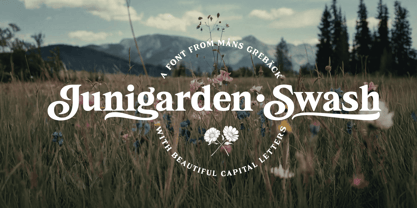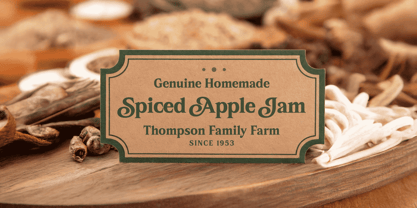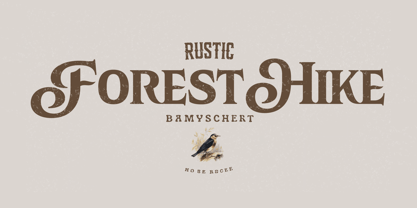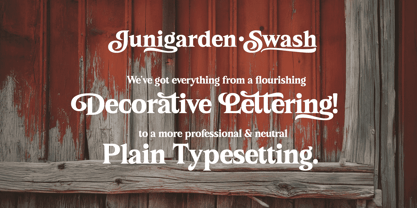
Junigarden
by Mans Greback
The Junigarden Font Family was designed by Måns Grebäck and published by Mans Greback. Junigarden contains 2 styles and family package options. More about this family
Junigarden Swash evokes a warm, nostalgic feeling, blending vintage elegance with the liveliness of summer days. It’s a serif typeface adorned with flowing swashes that lend it a graceful and decorative flair, reminiscent of timeless beauty. The font strikes the perfect balance between boldness and delicacy, transporting you to a bygone era while remaining fresh and vibrant.
Use underscore _ anywhere in a word to make a swash.
Pri_nce
Multiple swasher make different swashes:
Am_______ore
The swashes bring a sense of movement and charm, ideal for creating designs that feel both sophisticated and playful. Whether it’s capturing the beauty of a garden in full bloom or the essence of a sunny afternoon, Junigarden Swash is full of character and expressive detail.
The font is built with advanced OpenType functionality and guaranteed top-notch quality, containing stylistic and contextual alternates, ligatures, and more automatic and manual features; all to give you full control and customizability.
It has extensive lingual support, covering all Latin-based languages, from North Europa to South Africa, from America to South-East Asia. It contains all characters and symbols you'll ever need, including all punctuation and numbers.
Designed by Mans Greback, Junigarden Swash channels his passion for classic typography combined with modern versatility. Every curve and stroke reflects a mastery of craft and an eye for detail, making it a standout in any design project.